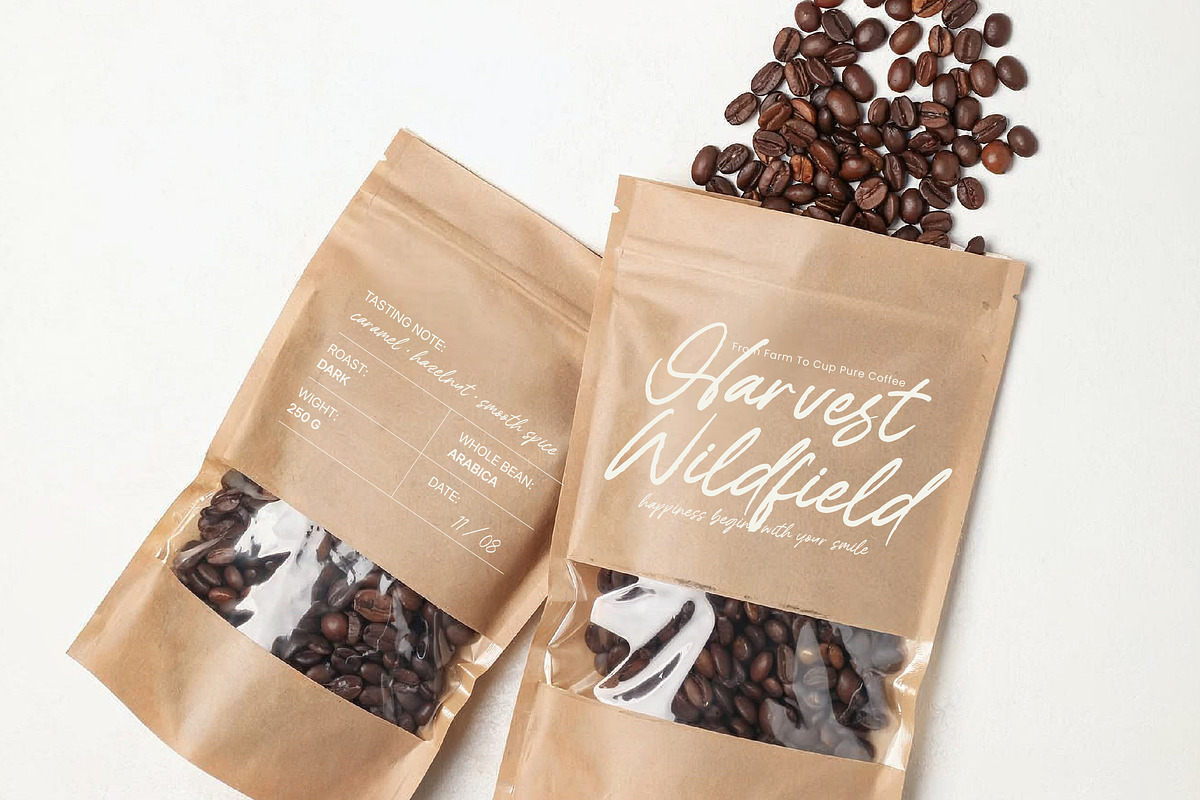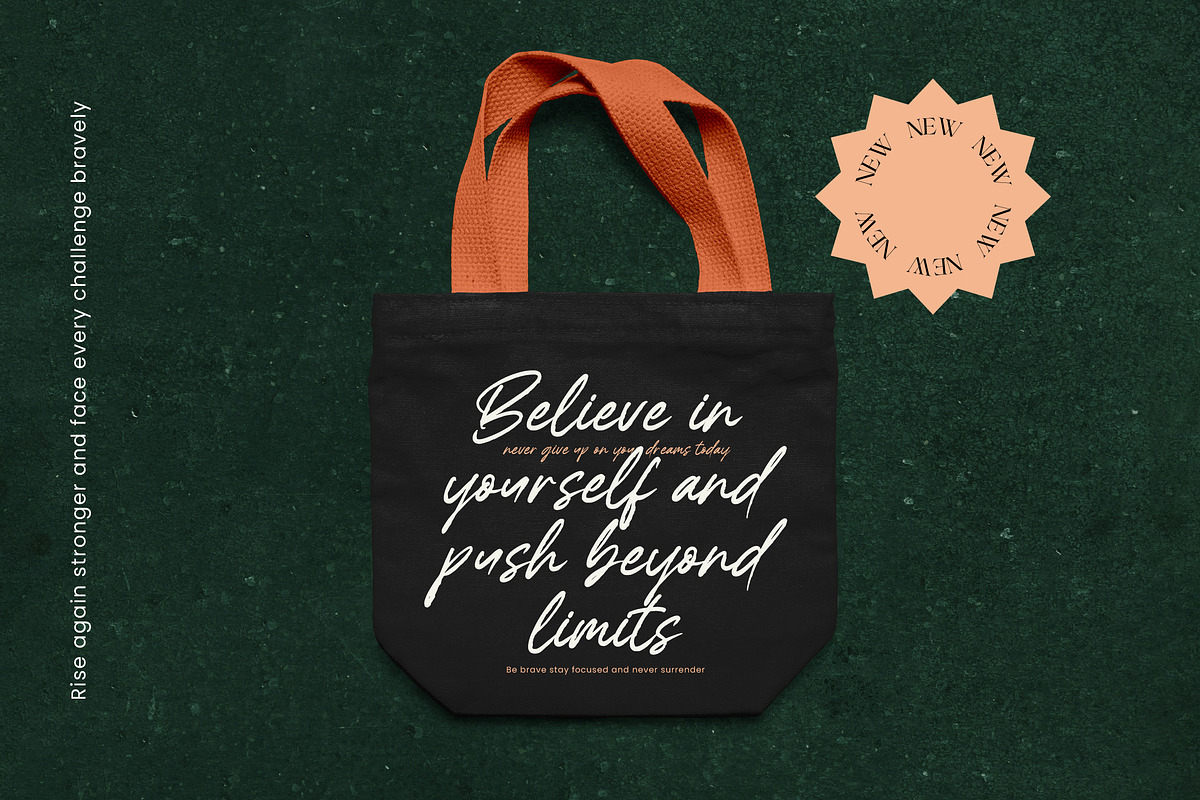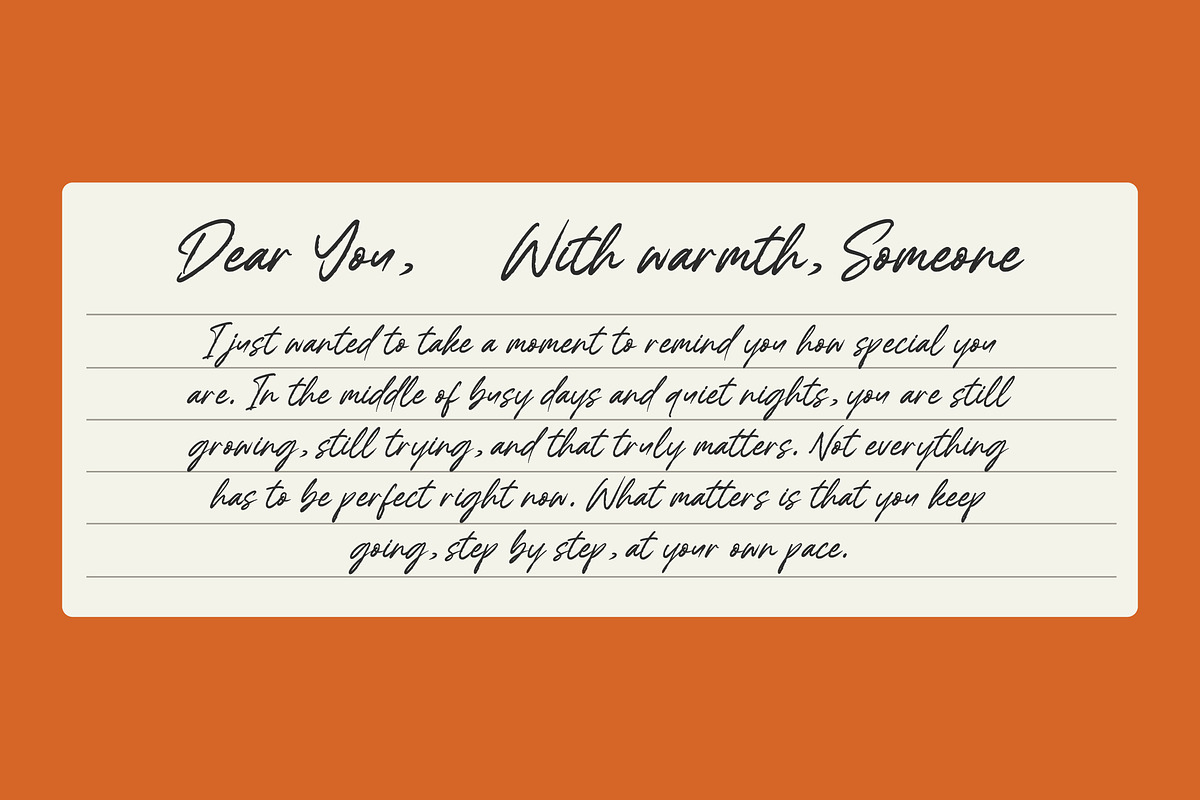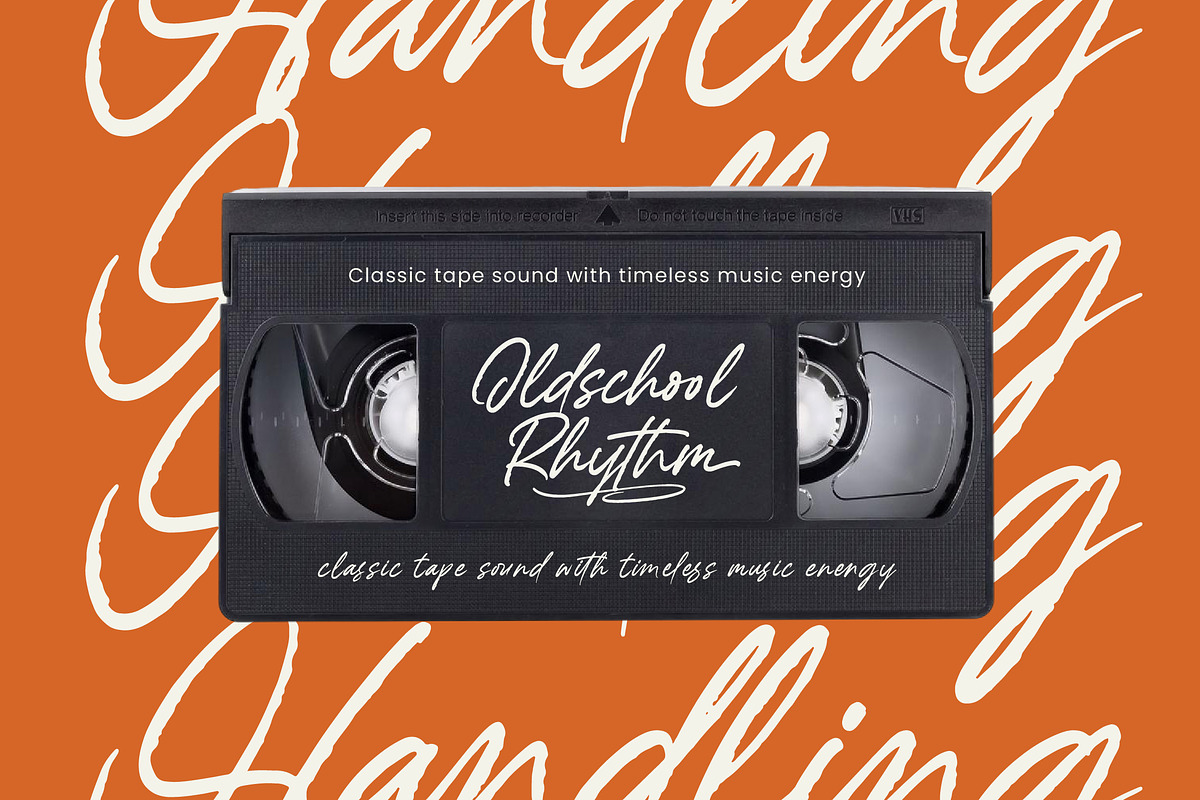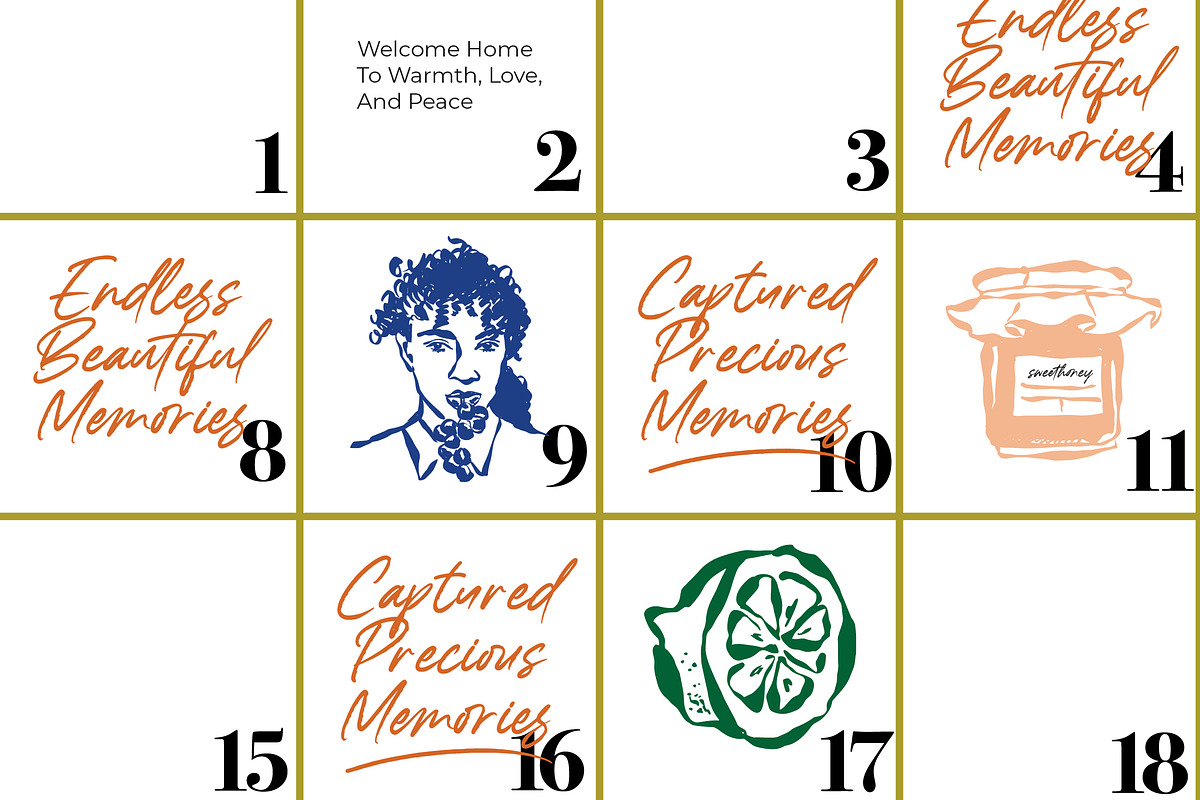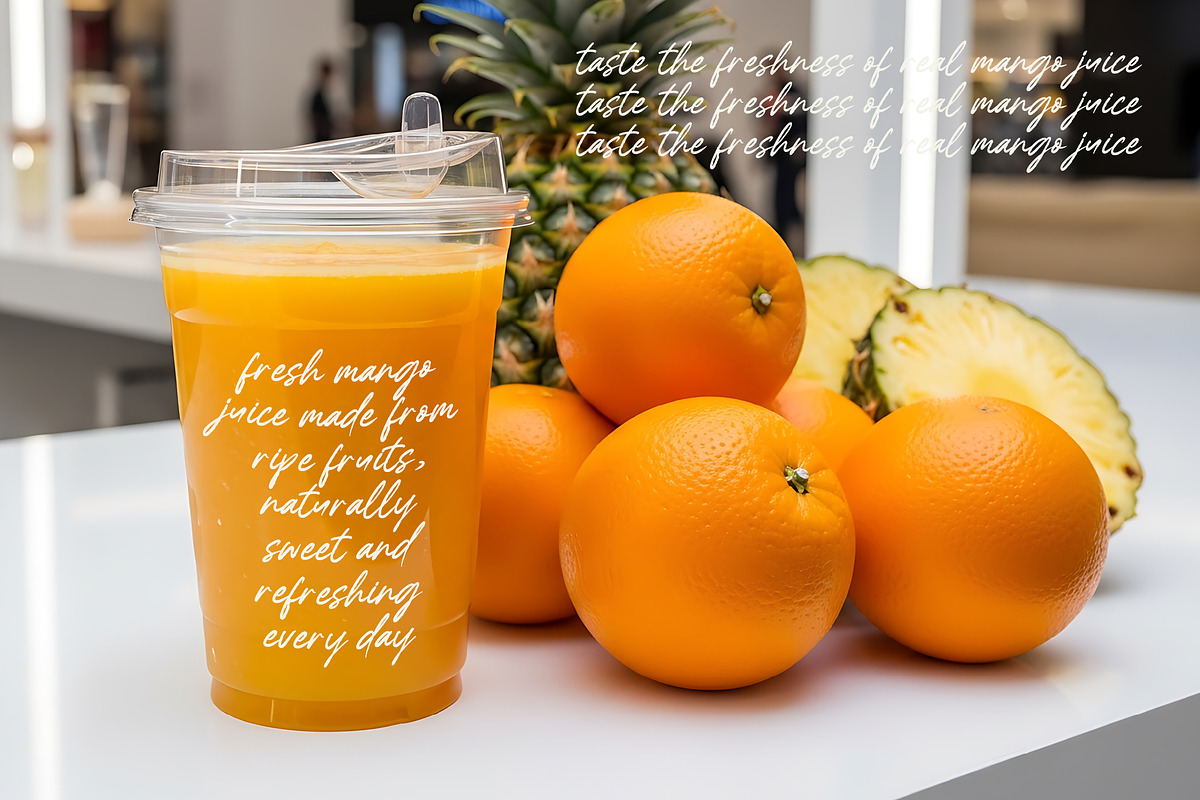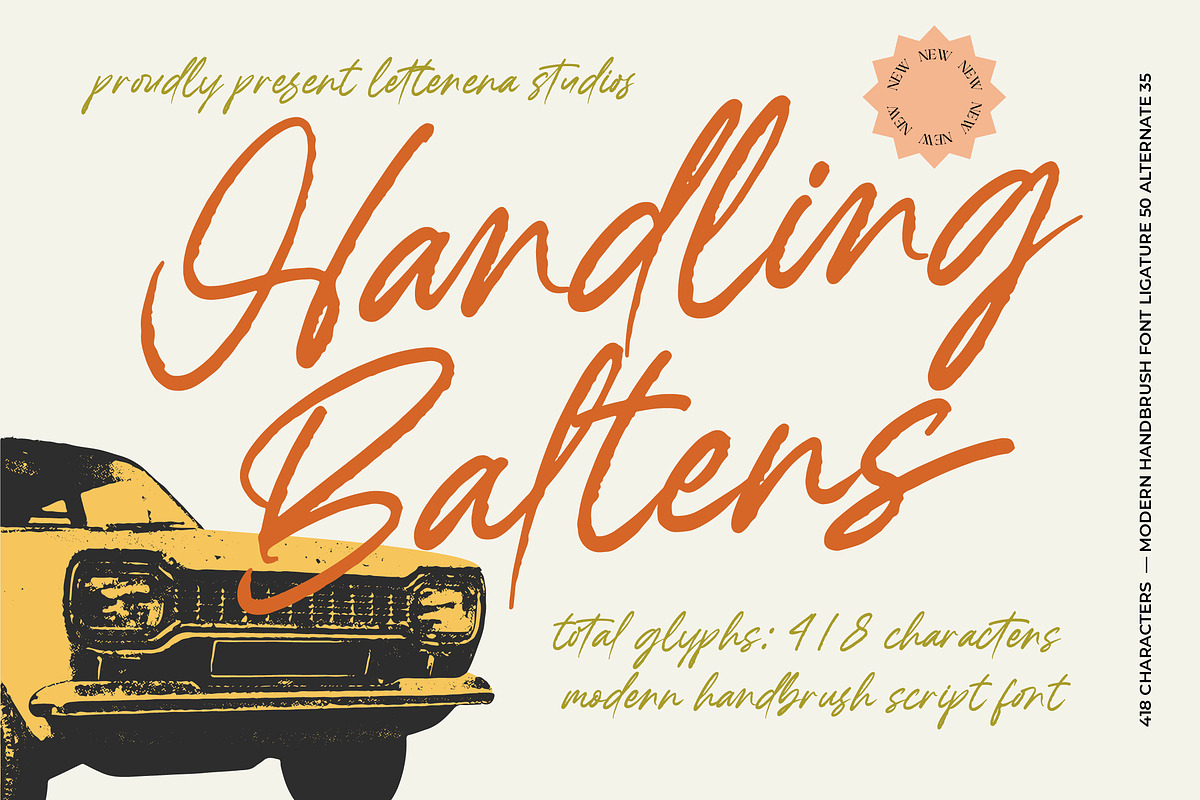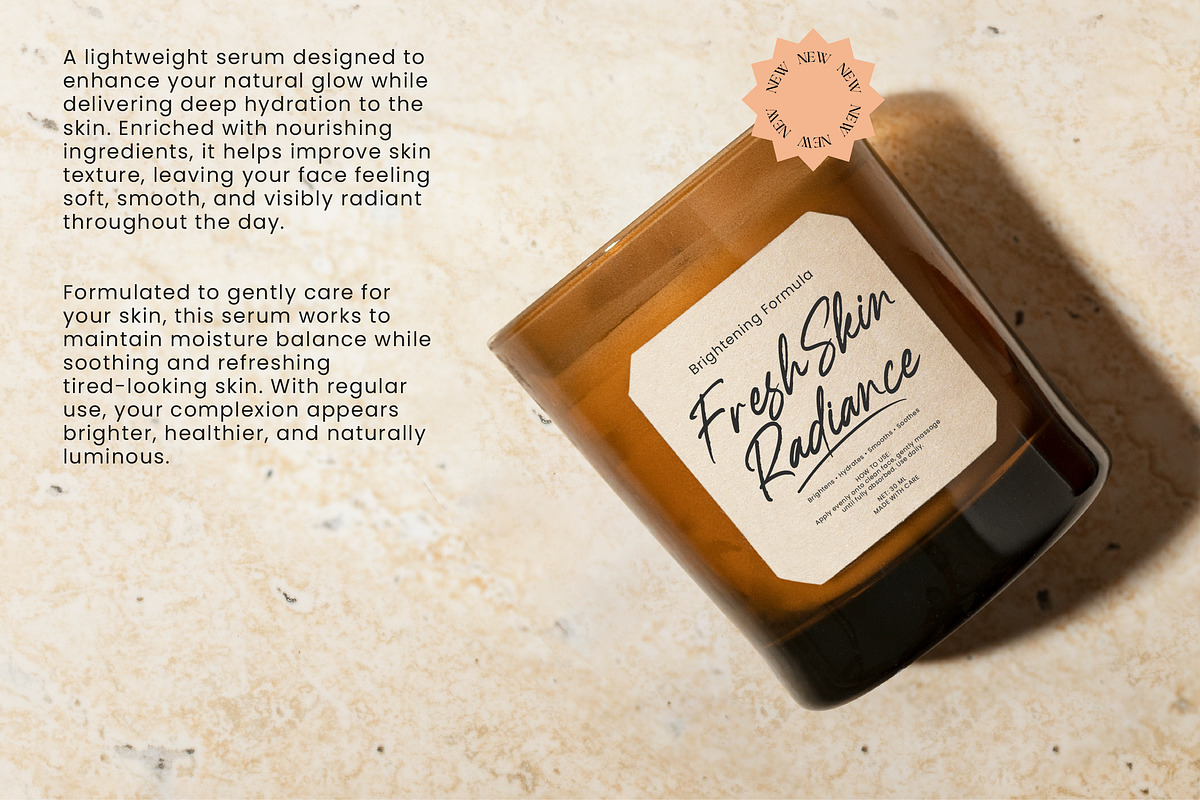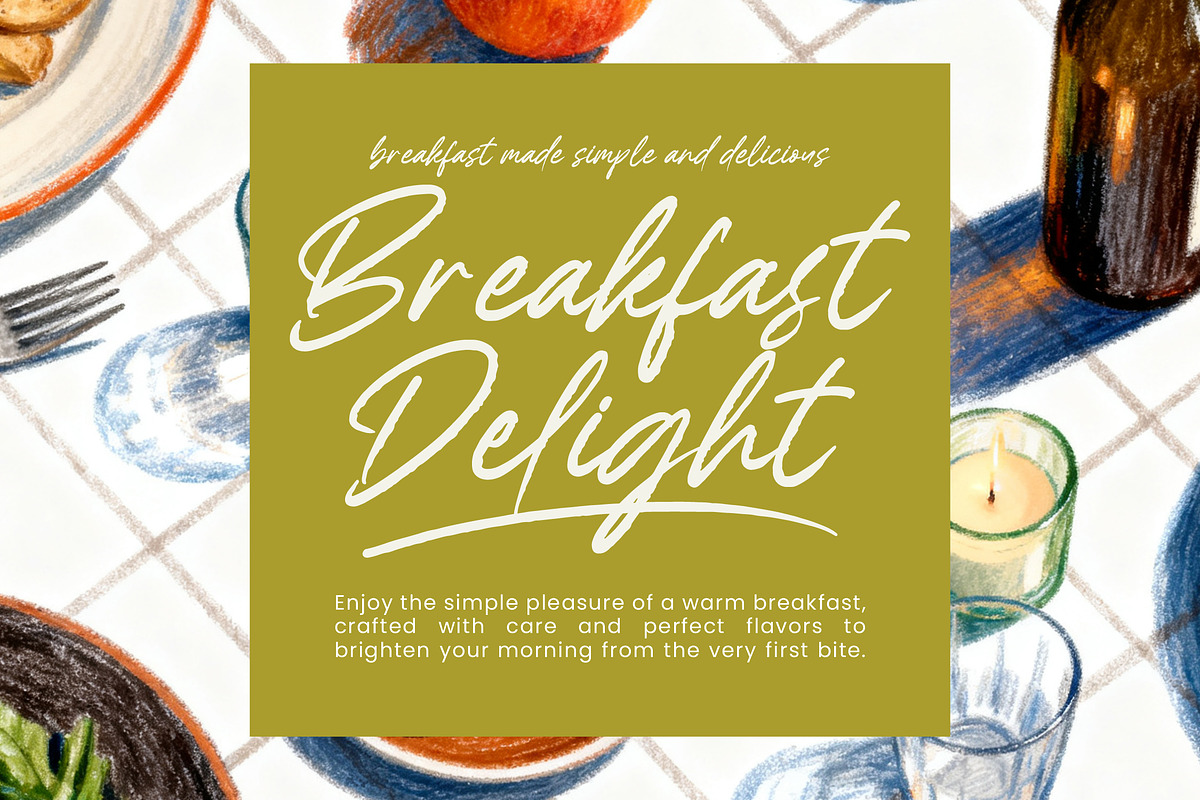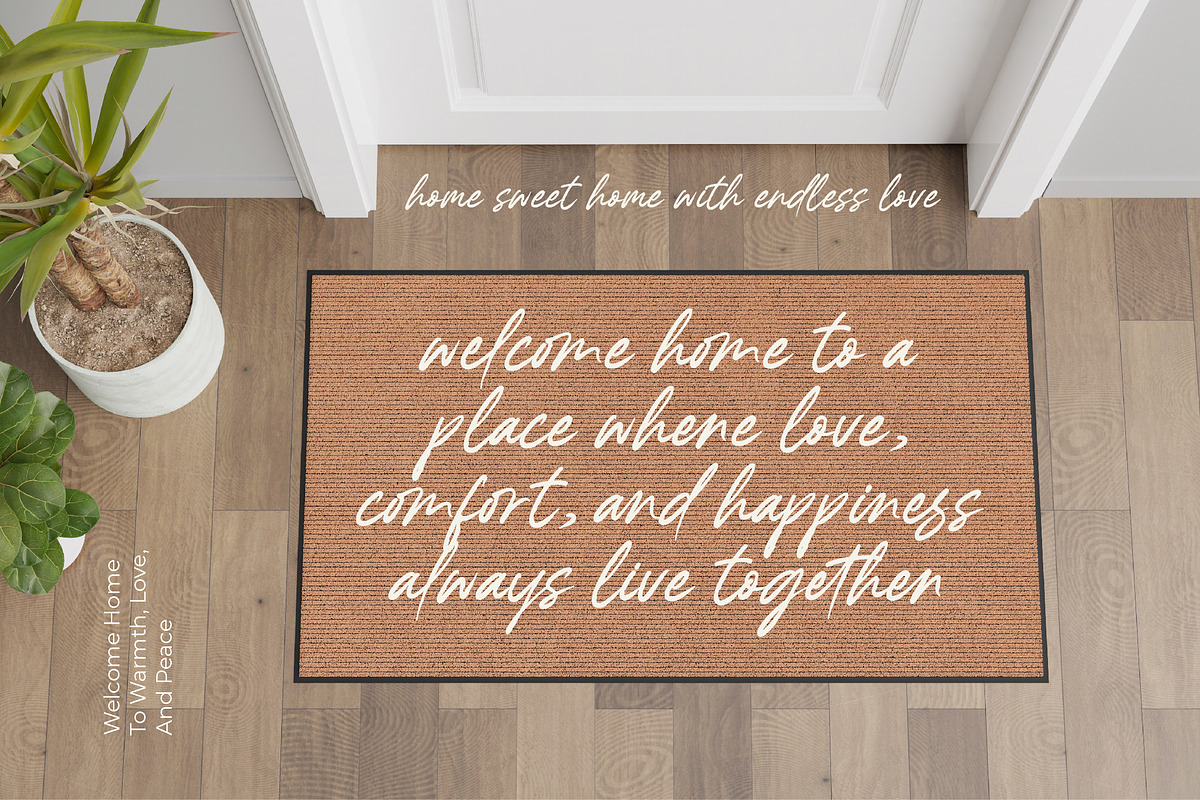
Handling Baltens Modern Handbrush
Handling Baltens - Modern Handbrush Script Elevate your design projects with the raw energy and refined craftsmanship of Handling Baltens - Modern Handbrush Script. This high-impact typeface features expressive brush strokes and a dynamic rhythm that captures the essence of authentic hand-lettering. With its textured edges and fluid motion, it brings a bold personality to any creative layout, ensuring your message stands out with undeniable visual authority and organic appeal.
Discover the ultimate solution for lifestyle branding and automotive design with a typeface built for performance. Handling Baltens - Modern Handbrush Script is the perfect choice for luxury packaging, apparel design, and high-end editorial layouts that require a bespoke touch. Whether you are crafting compelling social media graphics or distinctive logos, this font provides the aesthetic versatility needed to dominate the modern creative market and appeal to a premium audience.
Achieve global reach and technical excellence through a robust set of 418 characters designed for maximum flexibility. With its extensive multilingual support, Handling Baltens - Modern Handbrush Script adapts seamlessly across global markets, making it incredibly versatile for international projects. It features 50 functional ligatures and 35 unique alternates, allowing professional designers to create customized typography that feels truly hand-crafted while maintaining a polished commercial edge.
Transform your brand identity into a visual powerhouse by integrating this statement-making script into your creative workflow. Handling Baltens - Modern Handbrush Script offers a seamless blend of vintage grit and modern elegance, catering to forward-thinking designers who refuse to settle for ordinary aesthetics. Invest in a premium typographic tool that delivers exceptional legibility and unmatched style, ensuring your vision leaves a lasting and professional impression on every viewer.